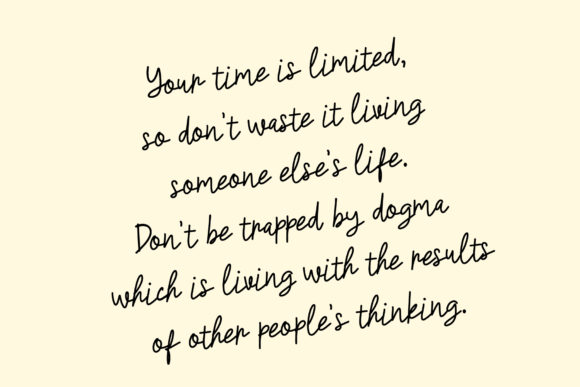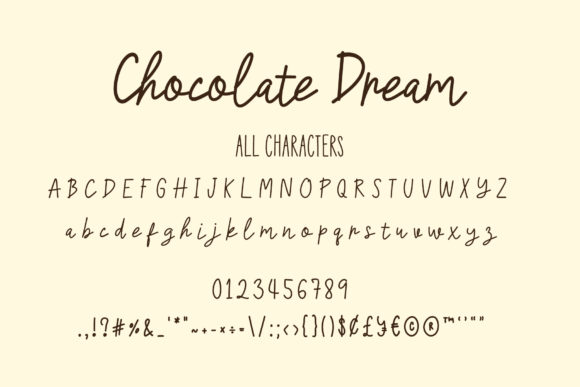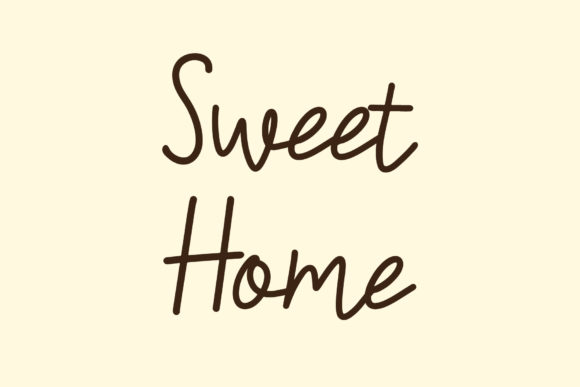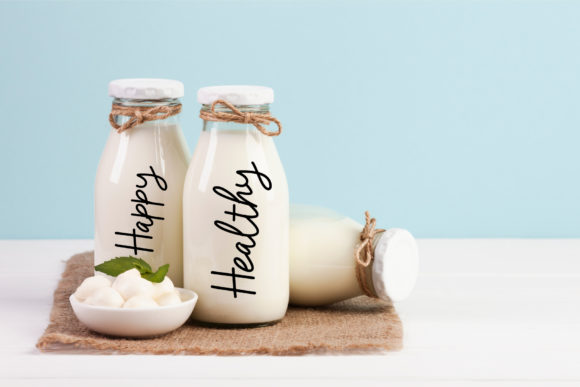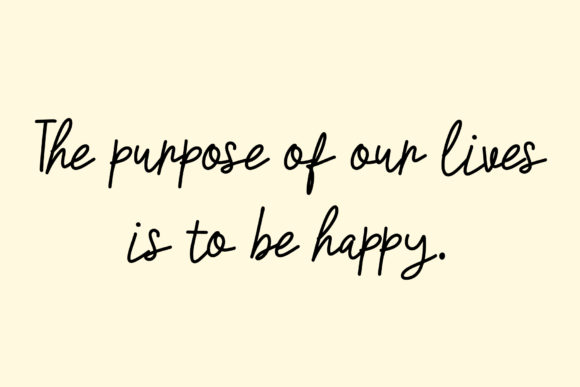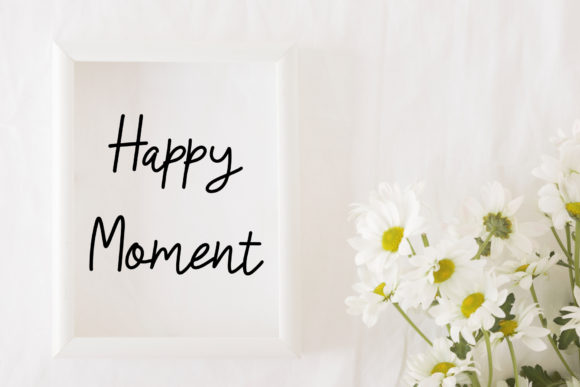
Introduction to Chocolate Dream Font
Chocolate Dream is a cute handwritten font.
Its playful and a little bit quirky, this font is the perfect fit for your social media posts, posters, cards and cute greeting cards .